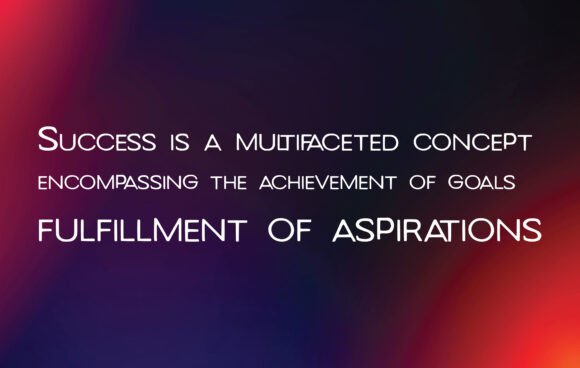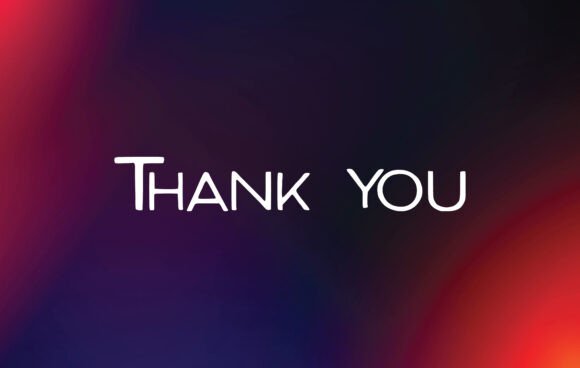
Introducing Burflower Font: Elevate Your Creative Projects with Style and Versatility
In the world of typography, finding the perfect font that combines style, readability, and versatility can be a daunting task. However, if you’re on the hunt for a typeface that can effortlessly elevate your creative projects, look no further than Burflower Font. This exquisite font is meticulously crafted to become a staple in your collection, offering an ideal blend of aesthetics and functionality that can enhance any design.
Designed for Clarity and Impact
Burflower Font stands out for its exceptional readability, making it an excellent choice for both titles and body text. Its clear and elegant letterforms ensure that your message is conveyed with precision and style, whether you’re working on magazine headlines, t-shirts, social media posts, or any other project that requires a touch of sophistication.
One of the key advantages of Burflower Font is its incredible versatility. It’s a typeface that seamlessly fits into various design contexts, from the elegance of wedding invitations and greeting cards to the bold statements of branding materials and magazine headlines. This adaptability makes Burflower Font an invaluable asset for designers and crafters who work on a wide range of projects.
- Magazine Headlines: Create eye-catching titles that draw readers in with Burflower Font’s unique and stylish lettering.
- T-Shirts and Apparel: Add a touch of personality and flair to your designs with a font that’s both fashionable and legible.
- Social Media Posts: Stand out in crowded feeds with Burflower Font’s distinctive style that captures attention and conveys your message effectively.
- Branding Materials: Establish a strong brand identity with a typeface that’s memorable, versatile, and aligns with your brand’s aesthetic.
- Wedding Invitations and Greeting Cards: Add an elegant and personal touch to your stationery designs with Burflower Font’s beautiful and refined appearance.
Why Choose Burflower Font?
Burflower Font is more than just a typeface; it’s a design companion that can help you achieve your creative goals. Here are a few reasons why it should be at the top of your font wishlist:
- Easy to Read: Despite its stylish appearance, Burflower Font prioritizes readability, ensuring your audience can easily engage with your content.
- Highly Versatile: Its adaptability across different projects and mediums makes it a practical choice for any designer or crafter.
- Perfect Blend of Style and Functionality: Burflower Font strikes an ideal balance between aesthetics and usability, making it suitable for both print and digital designs.
Burflower Font is a remarkable addition to any designer’s or crafter’s toolkit. Its unique blend of style, versatility, and readability positions it as a go-to favorite for a wide array of creative projects. Whether you’re aiming to make a bold statement or add a touch of elegance to your designs, Burflower Font is up to the task. Elevate your creative projects with the sophistication and charm that Burflower Font has to offer.